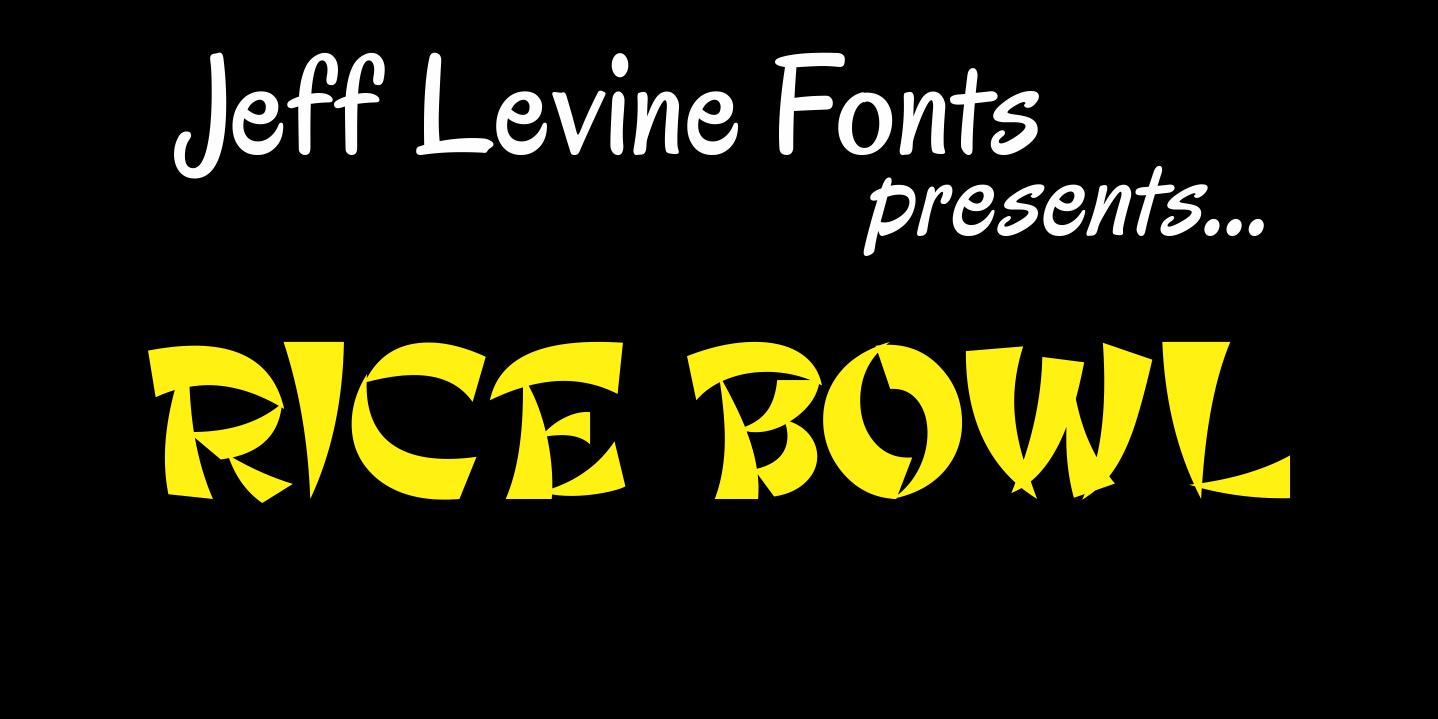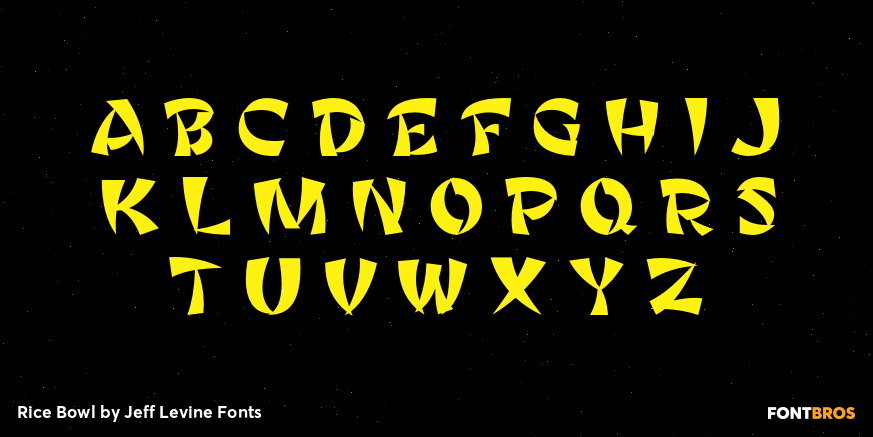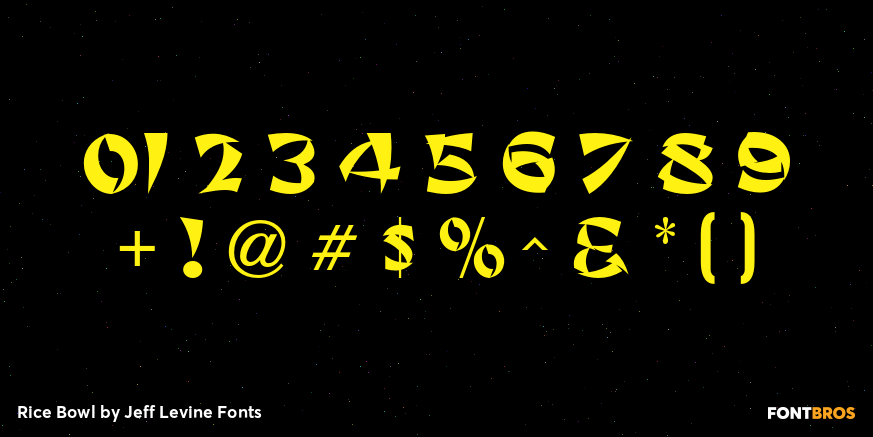
Rice Bowl
Rice Bowl JNL is an Oriental-style typeface with a decidedly casual appearance - foregoing traditional structure for that of the look of hand-lettering.
Rice Bowl by Jeff Levine Fonts